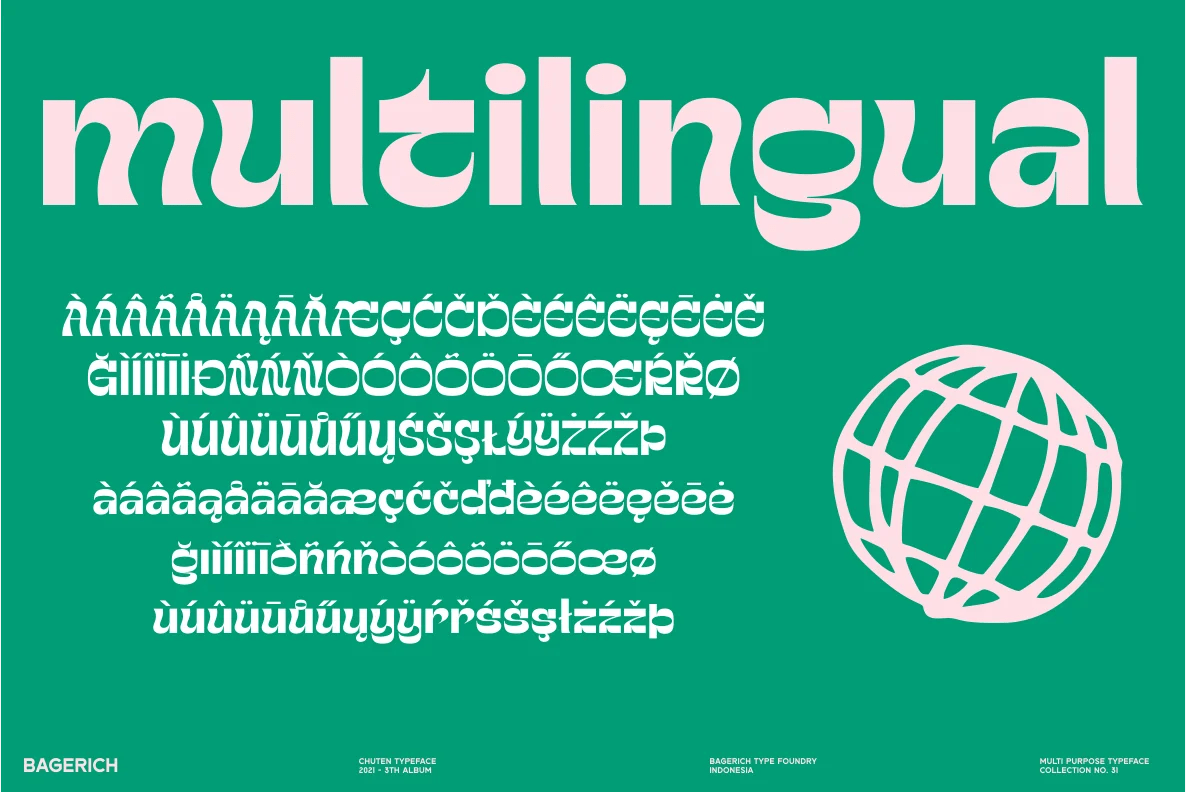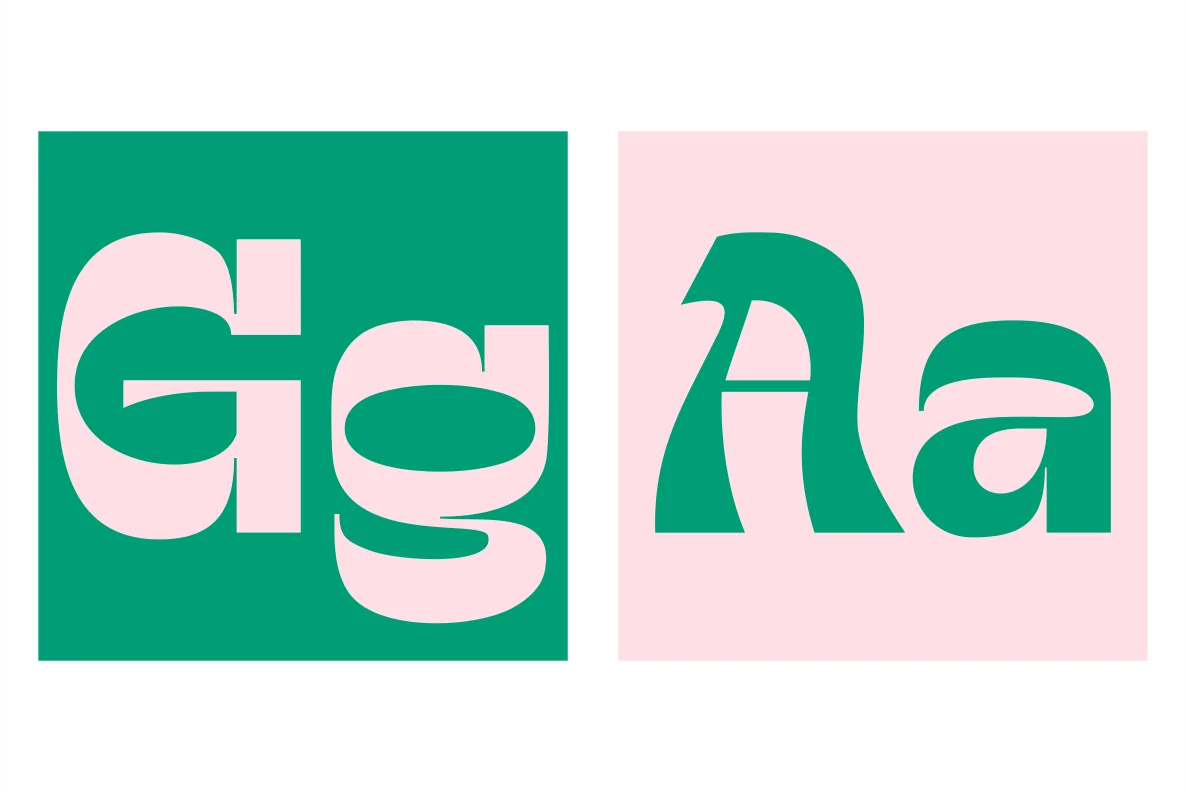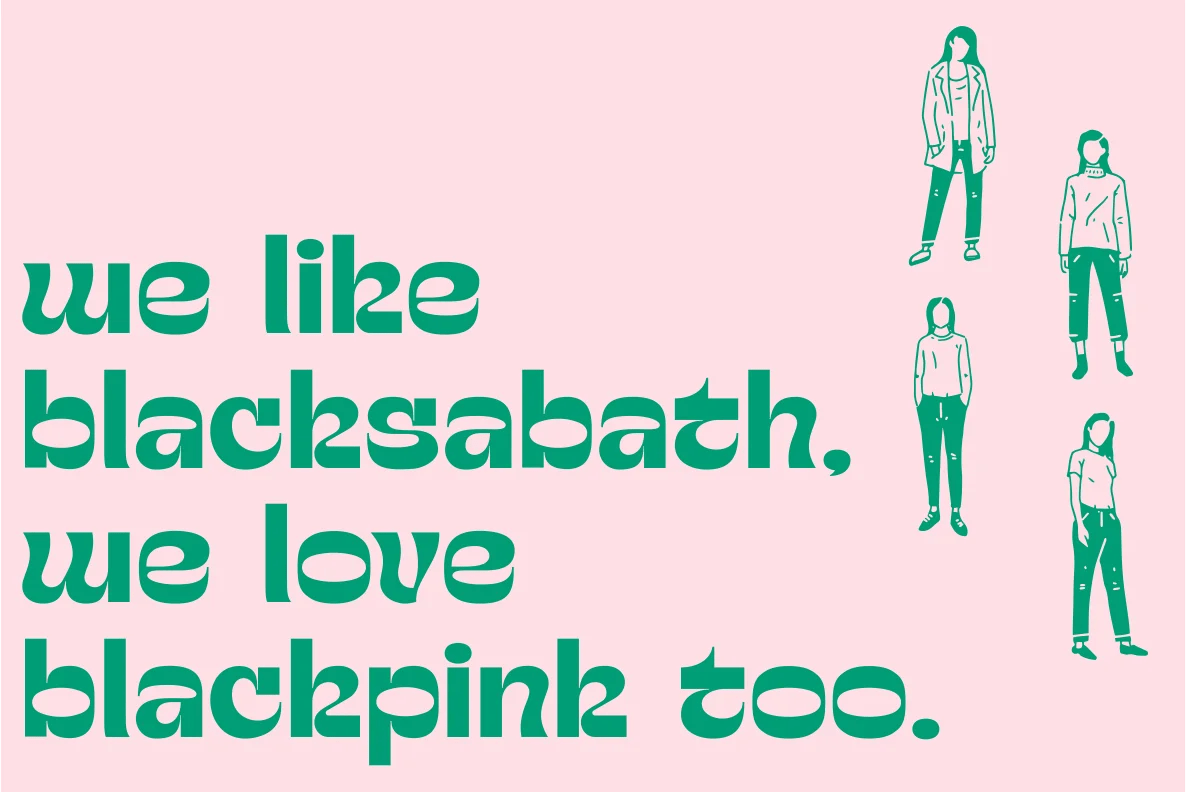
Font Descriptions
Chuten is multipurpose and unique display font, you can use it in modern and vintage design.
This font will suitable for any project, like branding, print template, logo and etc.
Chuten include uppercase and lowercase, ligature and alternate style, and also multilingual support.
CHUTEN
by bagerich